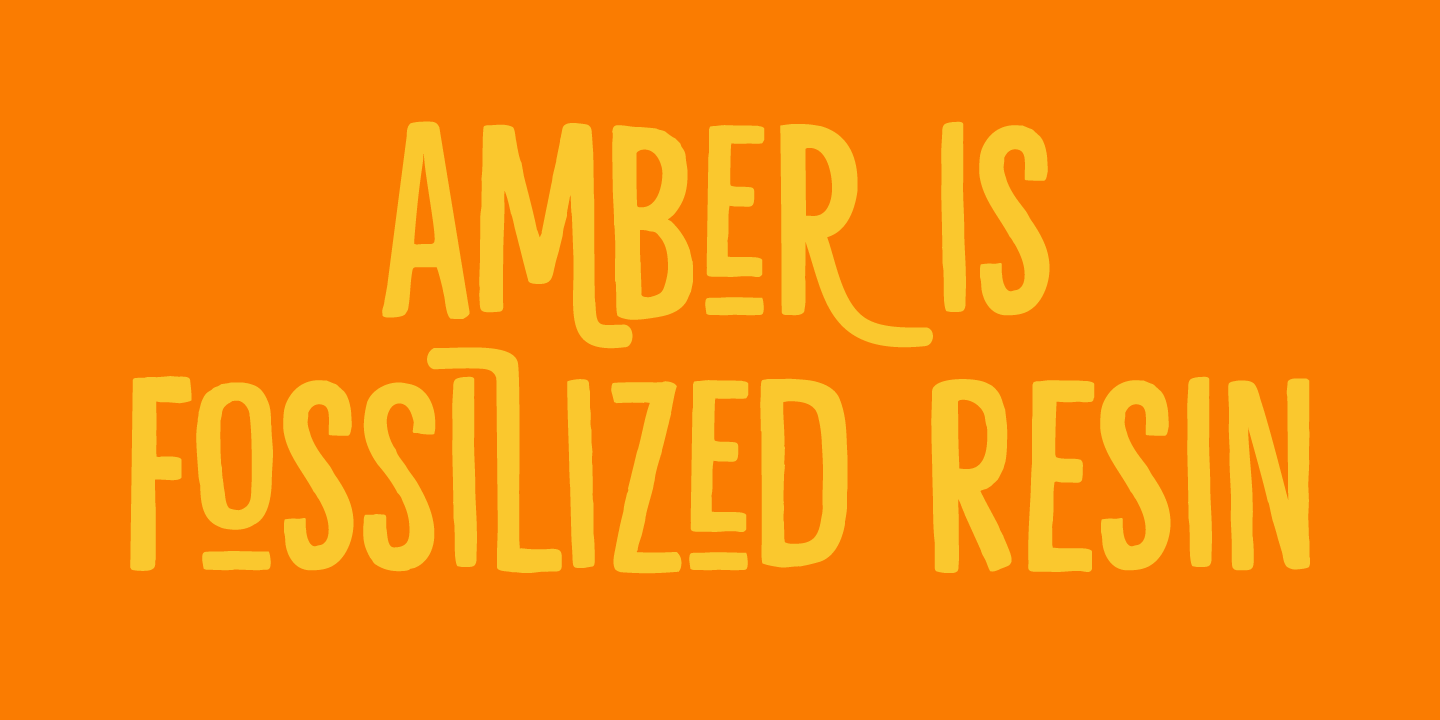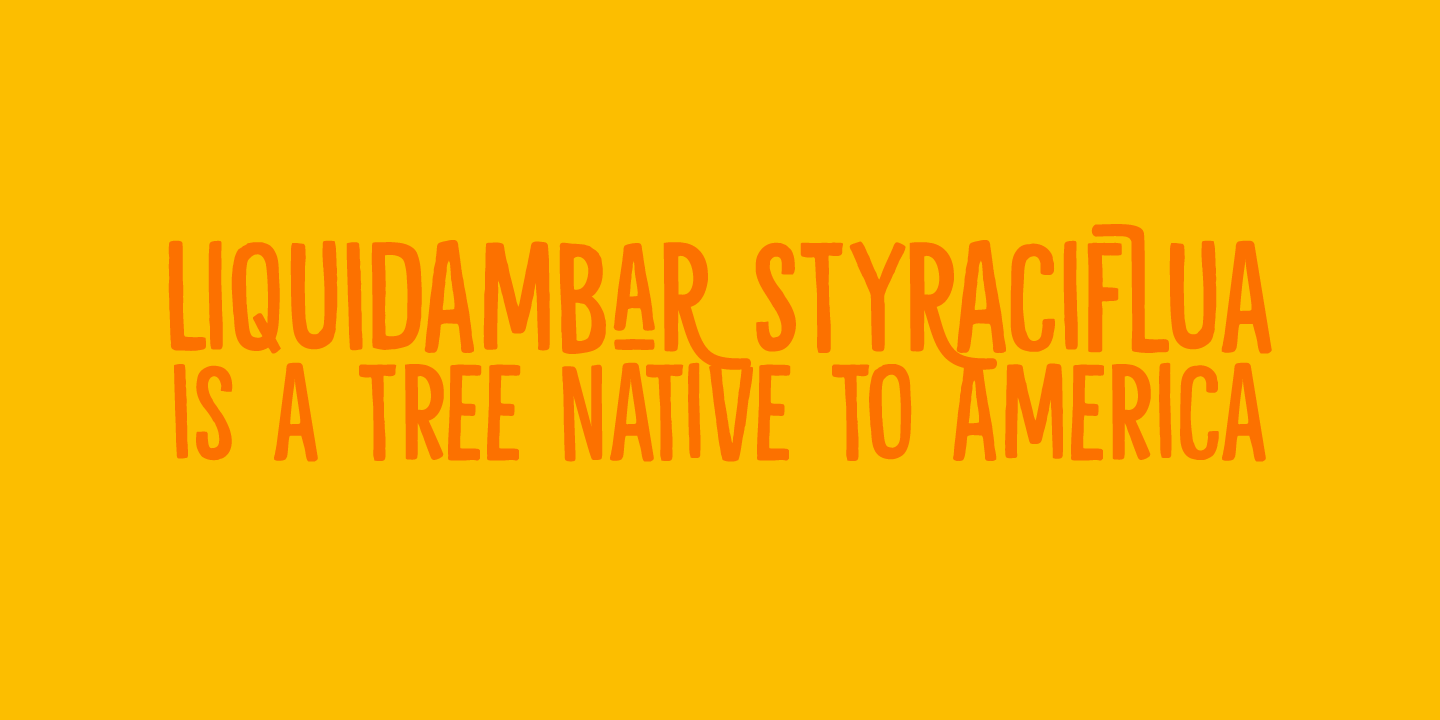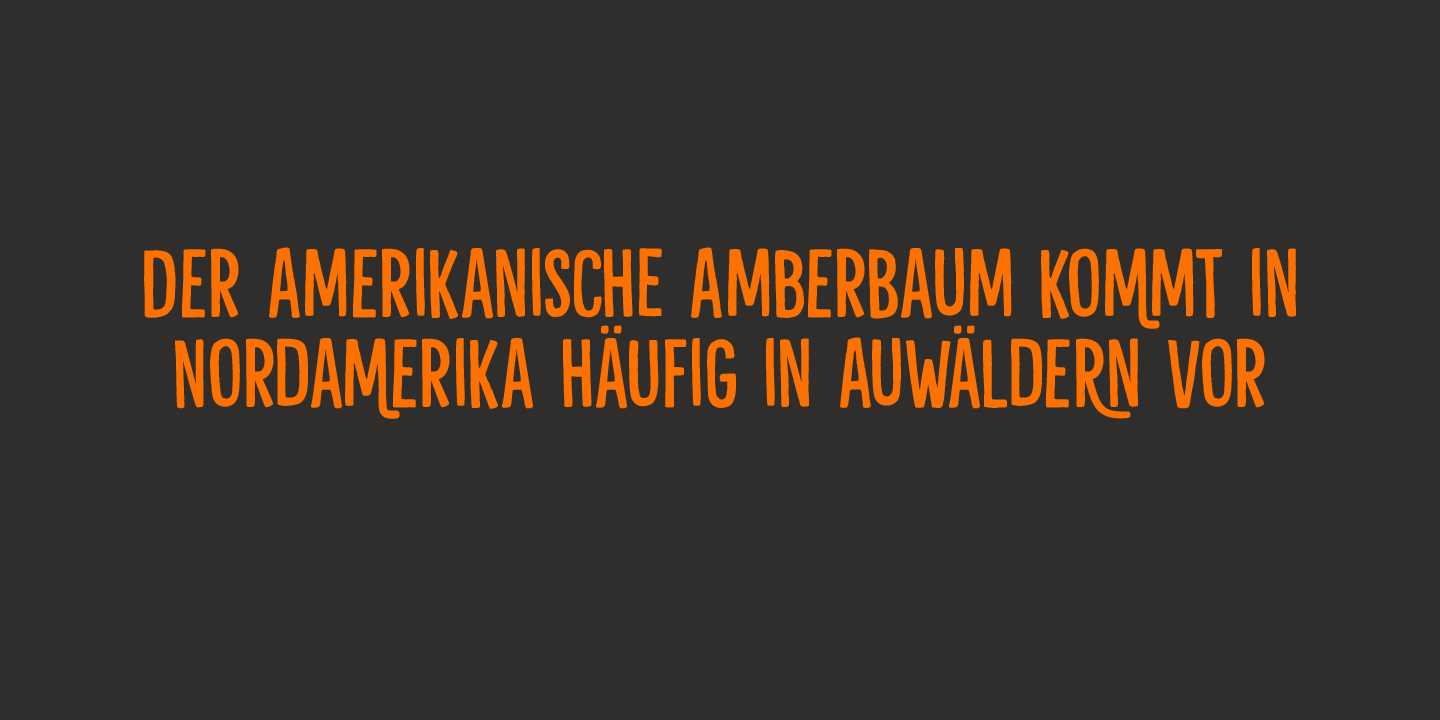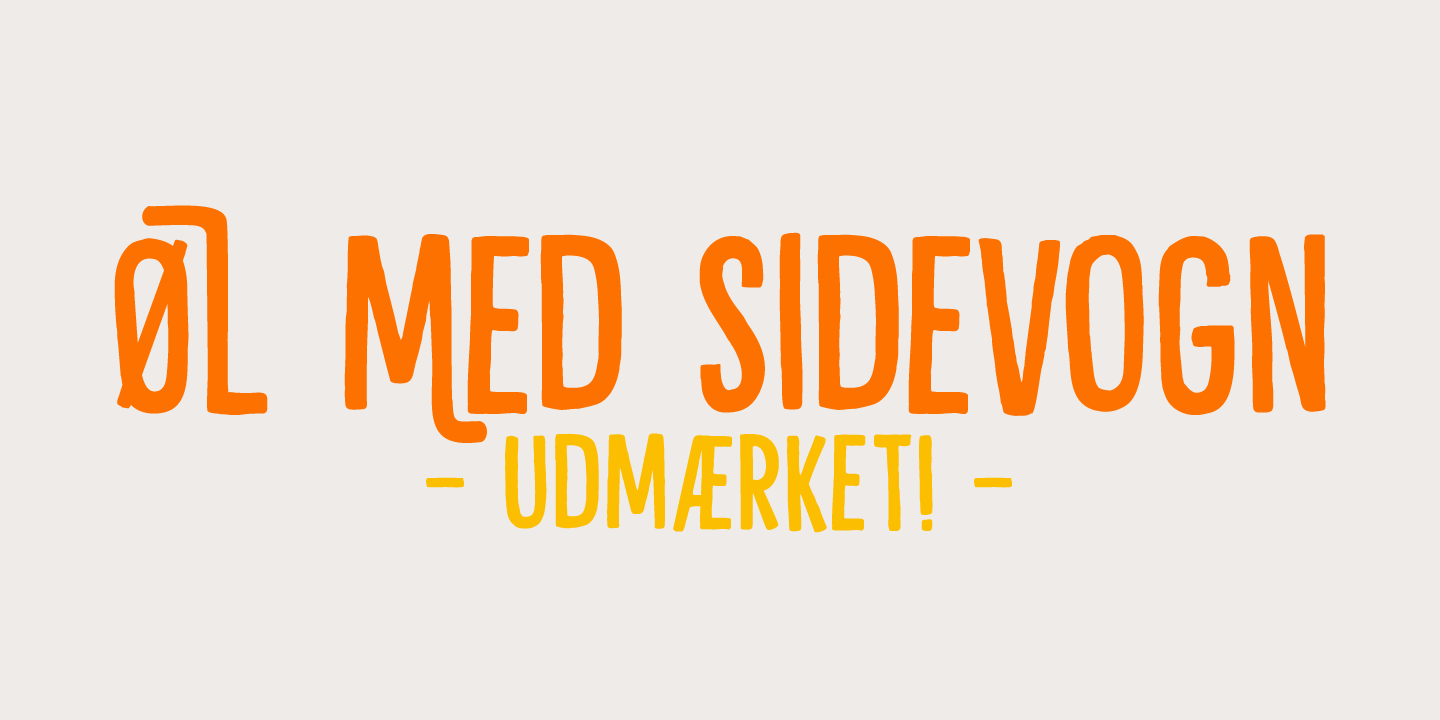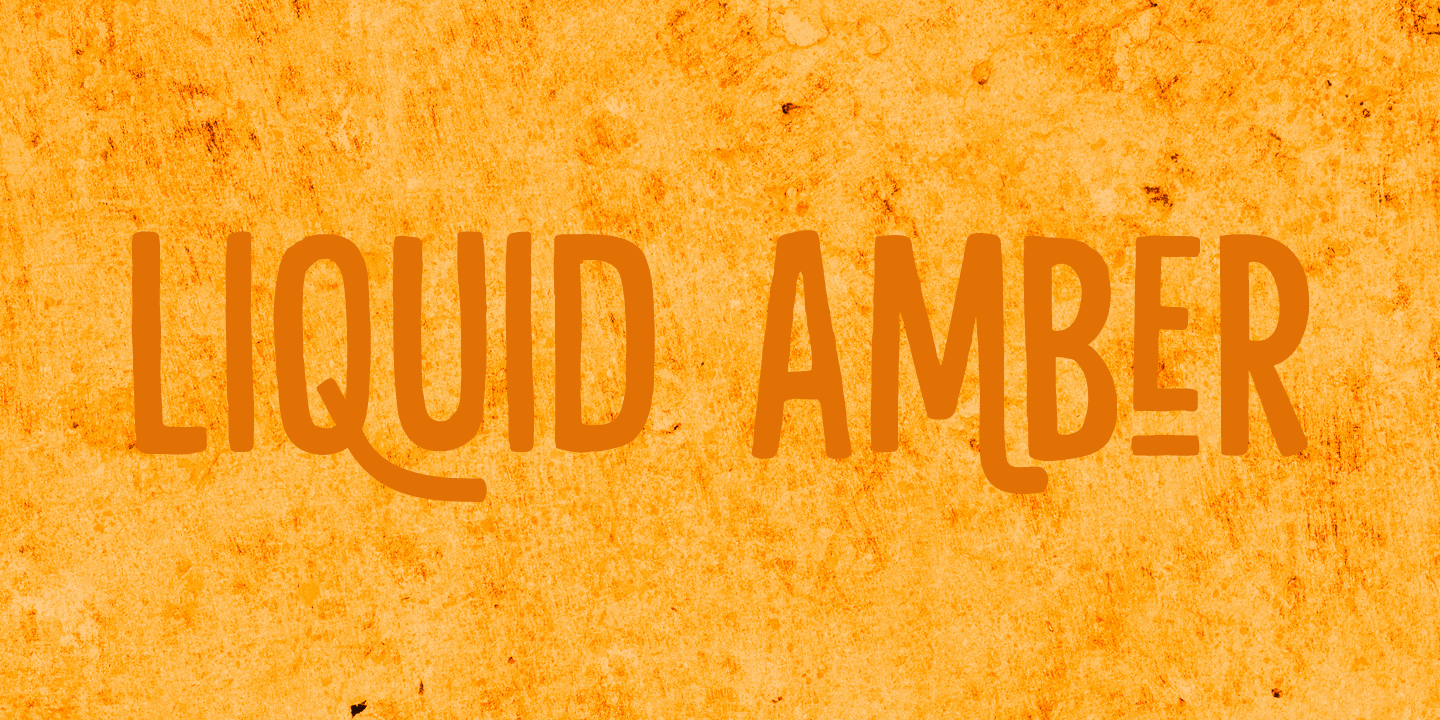
Liquid Amber
About Liquid Amber
Liquidambar is actually a beautiful tree, native to America. I have one in my garden and I love its autumn colors! Liquid Amber is something else: it is a handmade all caps font that comes with oodles of diacritics, some swashes and some alternate glyphs.…